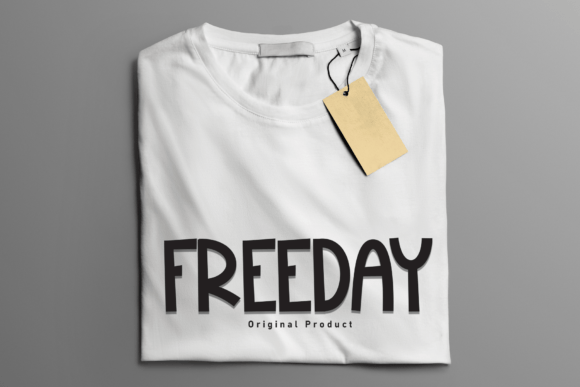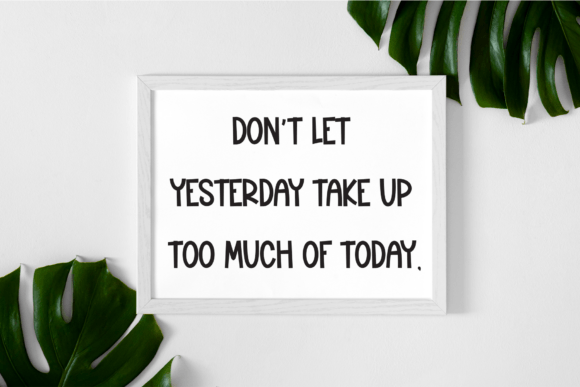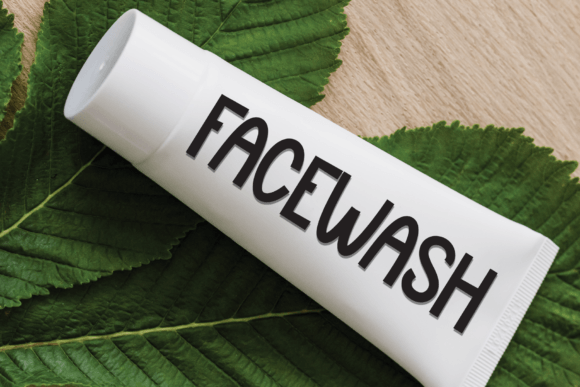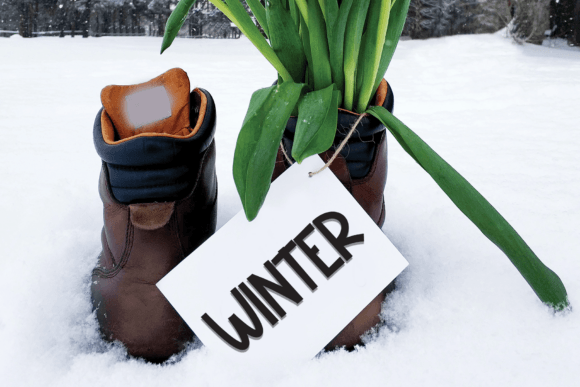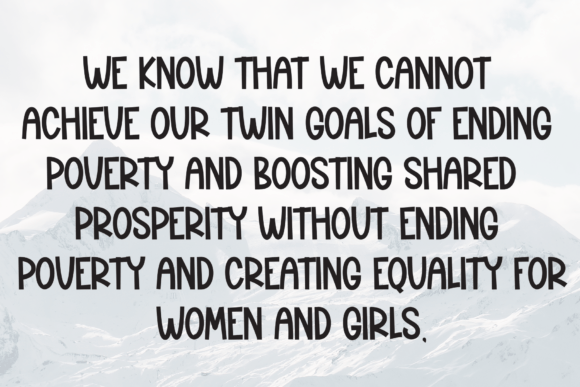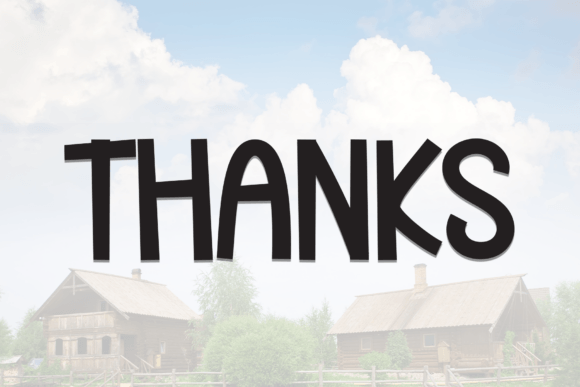
Discover the Charm of Farmhouse Font: A Delightful Hand-Scripted Display Font
Are you tired of using the same old fonts for your designs? Look no further! Introducing Farmhouse Font, a charming and warmhearted hand-scripted display font that’s sure to add a touch of whimsy to your creations. This delightful typography dances the fine line between adorable and amusing, making it perfectly suited for a variety of design projects.
What Makes Farmhouse Font So Special?
Farmhouse Font is more than just a font – it’s a typography treat that inspires joy with every keystroke. Its friendly, personal style imbues every creation with a unique, fun-filled touch, transforming ordinary designs into extraordinary masterpieces. Whether you’re a designer, crafter, or DIY enthusiast, this font is sure to become your new go-to for adding a dash of personality to your work.
Farmhouse Font is especially well-suited for penning wedding invitations, greeting cards, and other special occasion designs. Its charming and whimsical style adds a touch of romance and playfulness, making it perfect for:
- Wedding invitations and save-the-date cards
- Birthday cards and party invitations
- Holiday cards and gift tags
- Anniversary cards and love letters
Bringing Whimsy to Your Designs
Farmhouse Font is not just limited to paper crafts and invitations. Its versatility makes it perfect for a wide range of design projects, including:
- Blog headers and titles
- Signs and posters
Why Choose Farmhouse Font?
So why choose Farmhouse Font over other fonts? Here are just a few reasons:
- Unique and playful style: Farmhouse Font has a one-of-a-kind charm that’s sure to set your designs apart.
- Easy to read and use: Despite its whimsical style, Farmhouse Font is surprisingly easy to read and use, even for large blocks of text.
- High-quality design: Farmhouse Font is designed with high-quality craftsmanship in mind, ensuring that it looks great in any design.